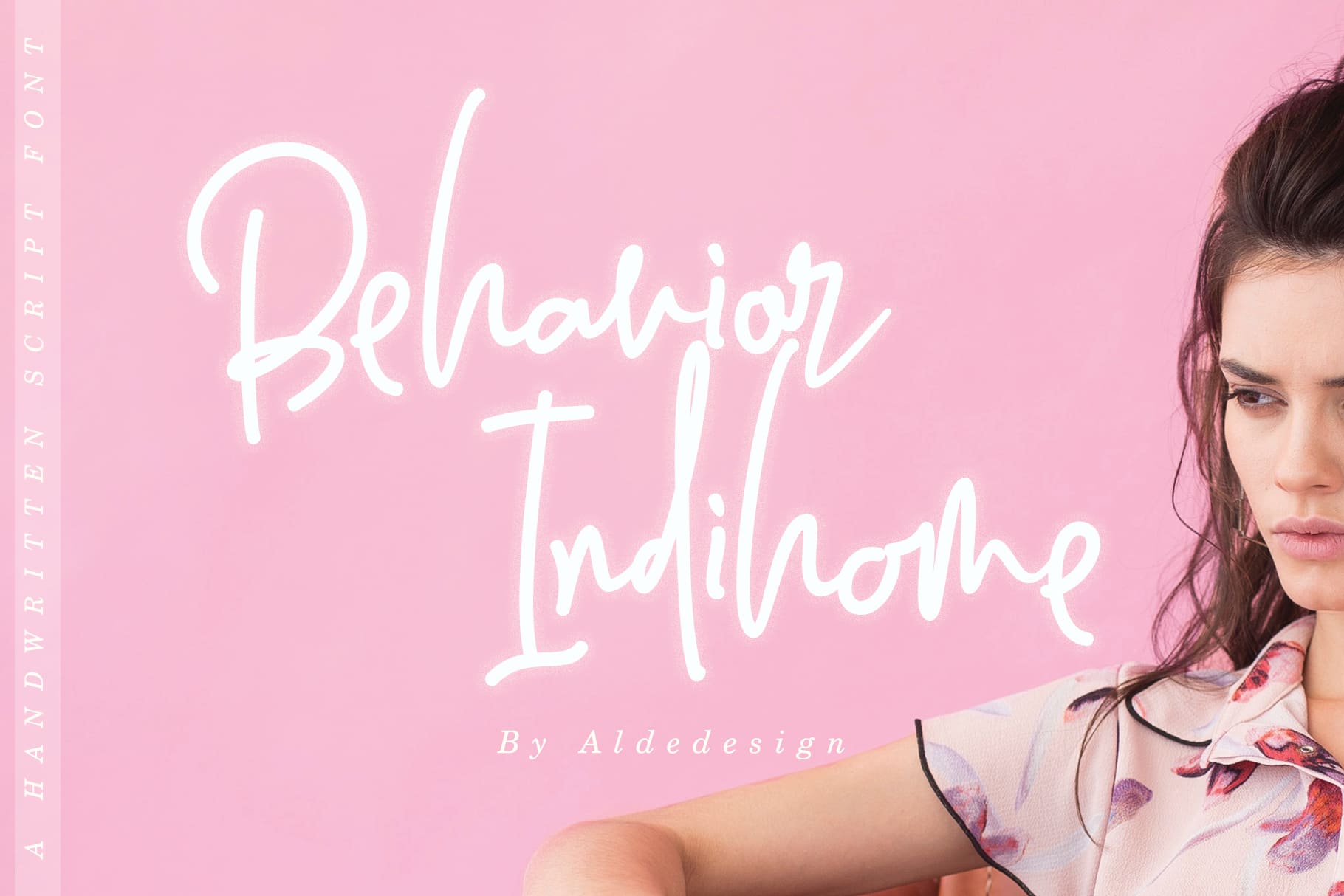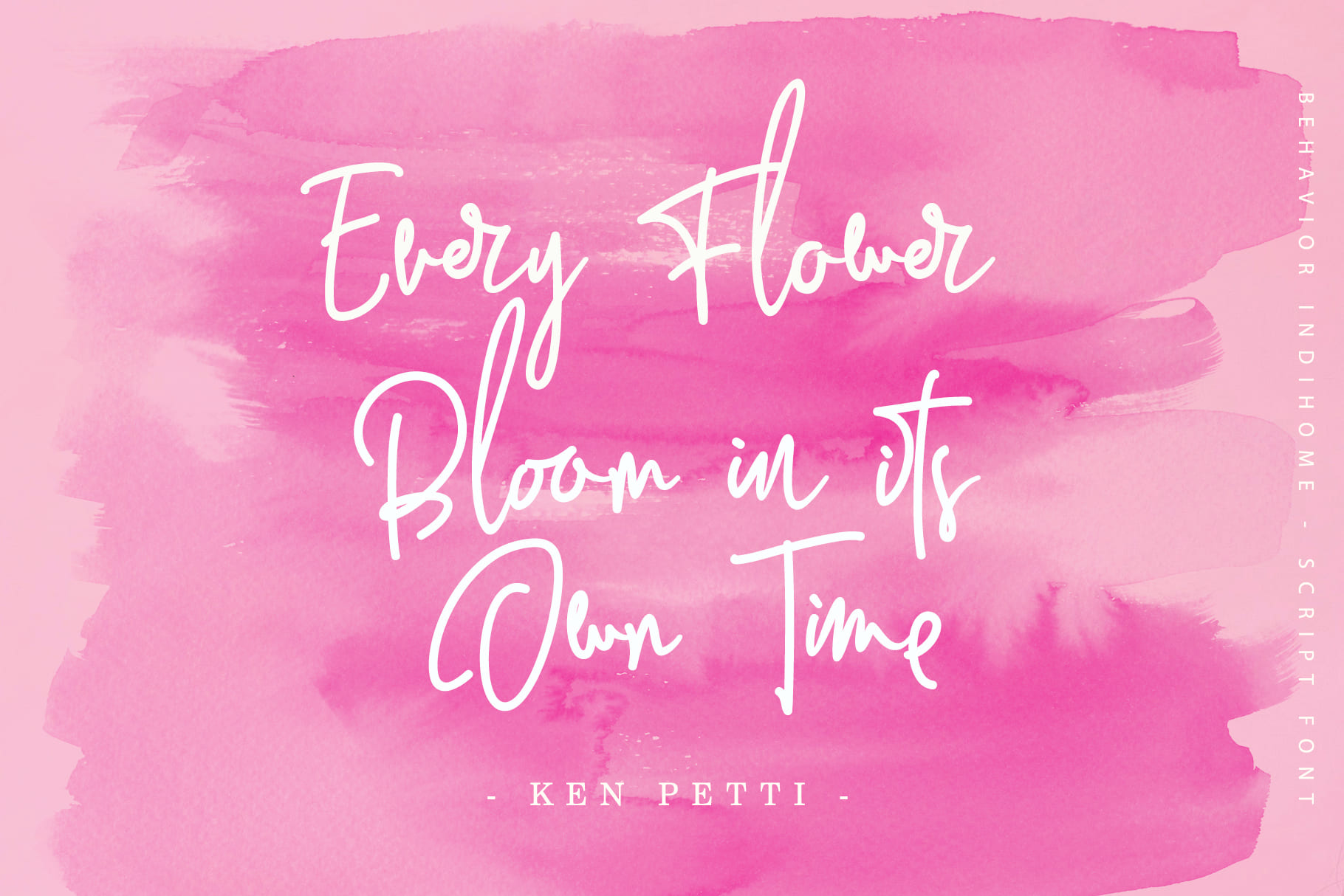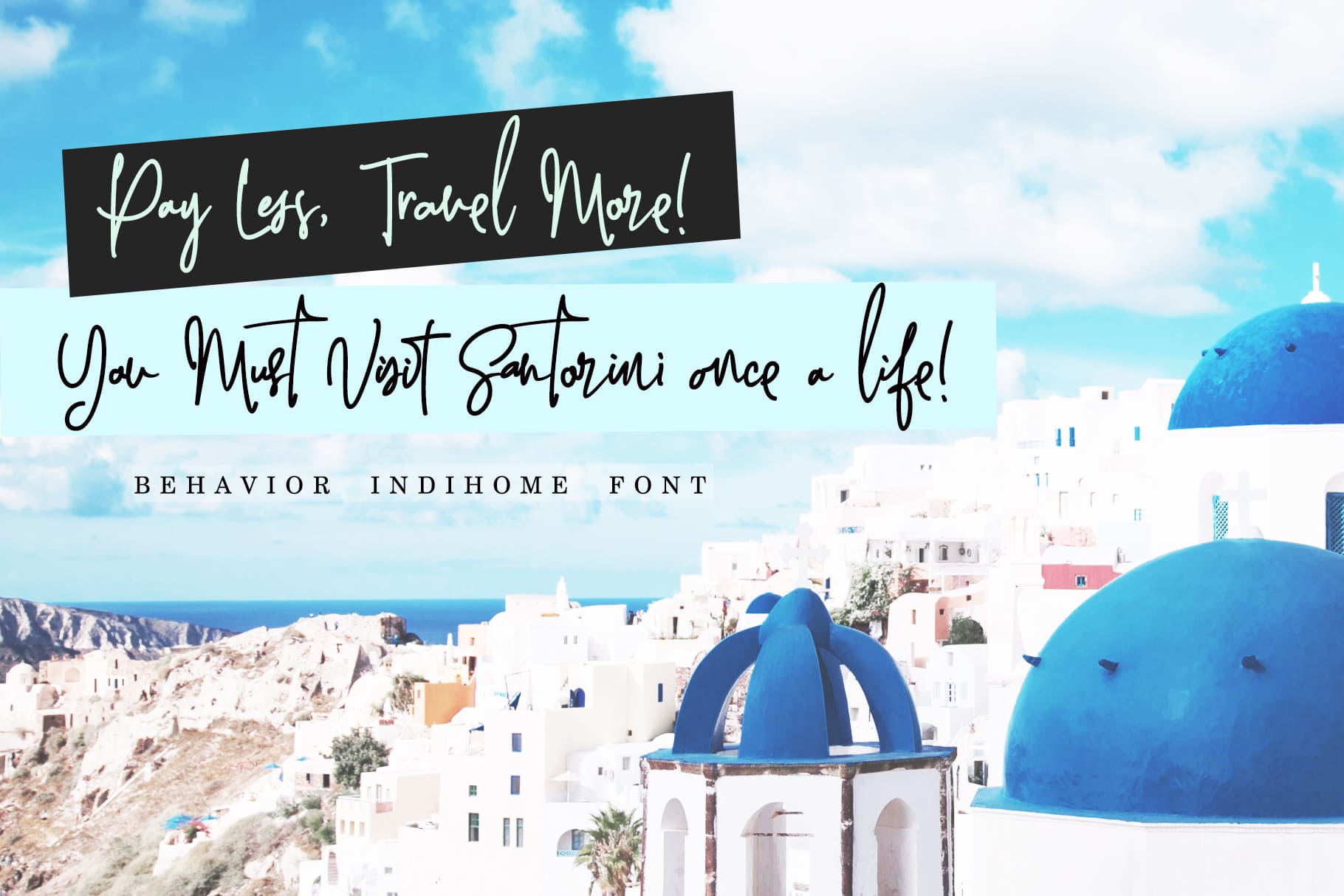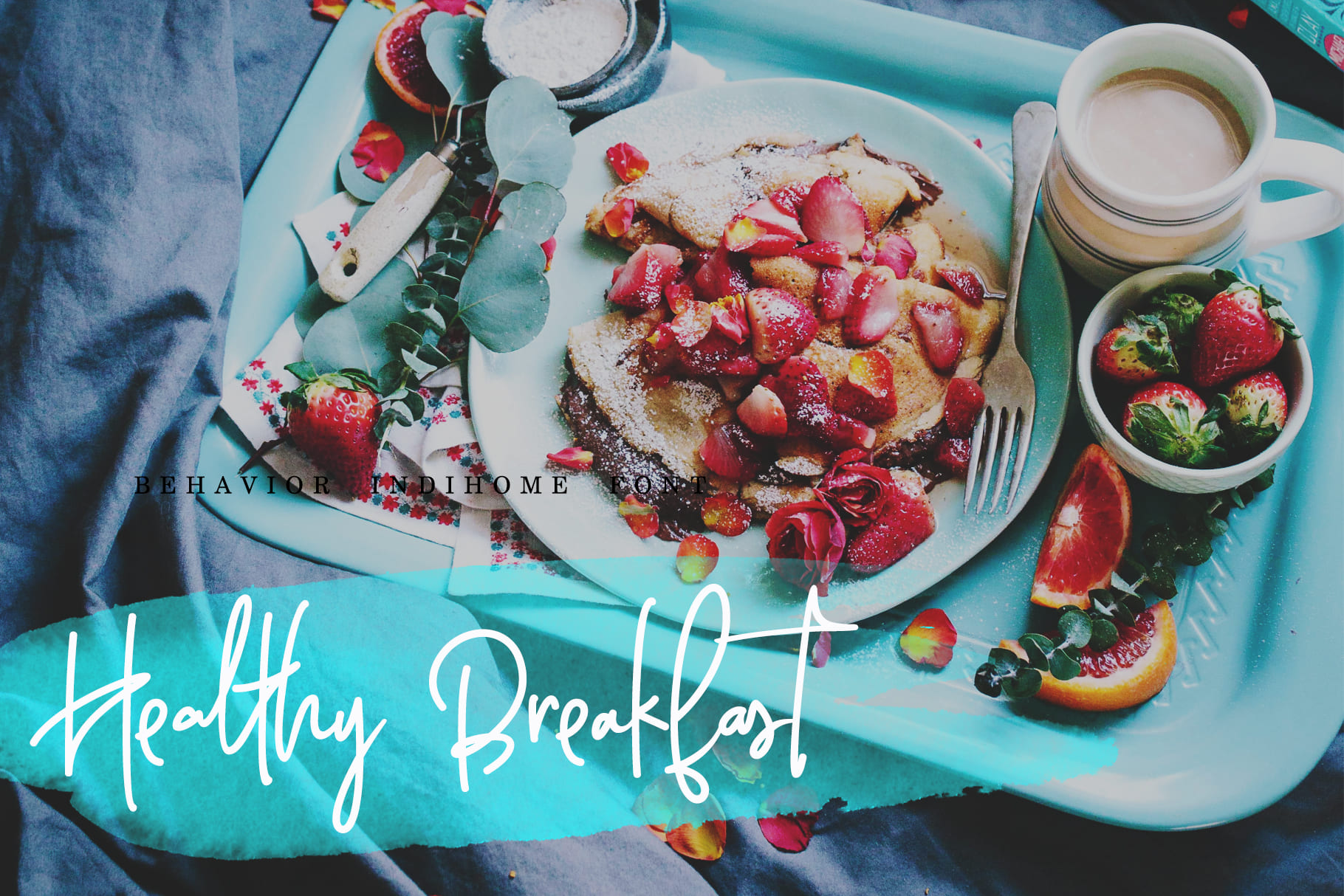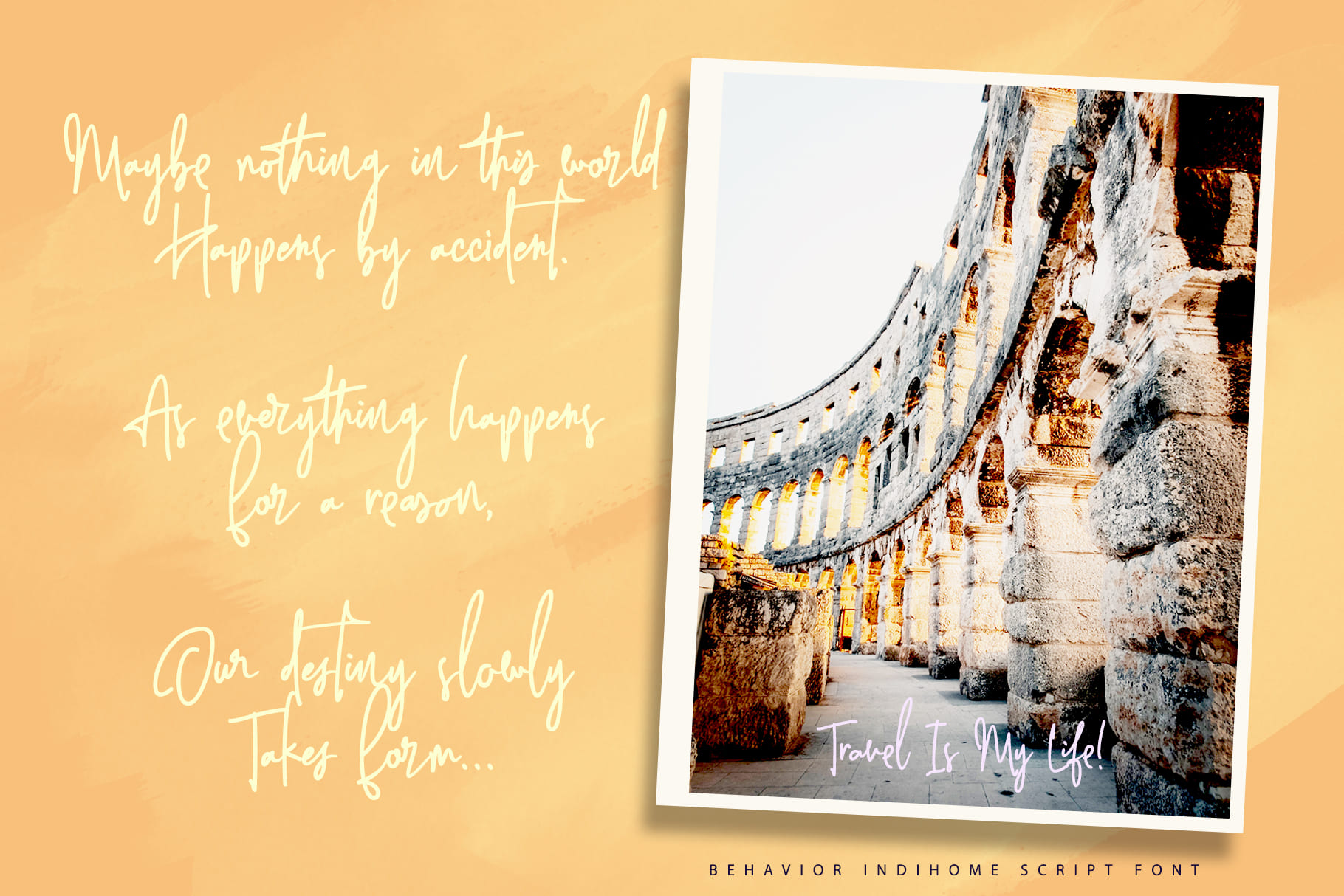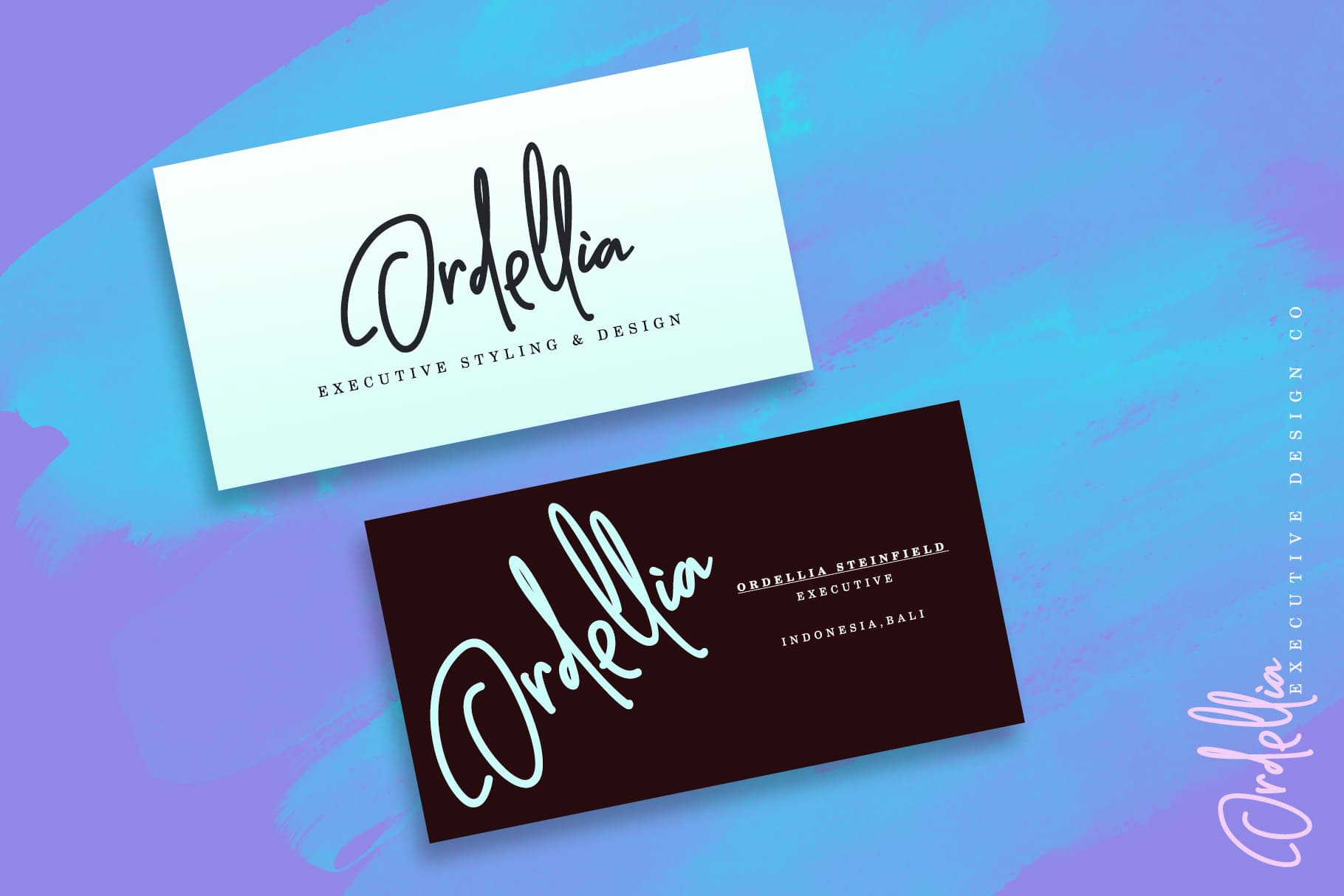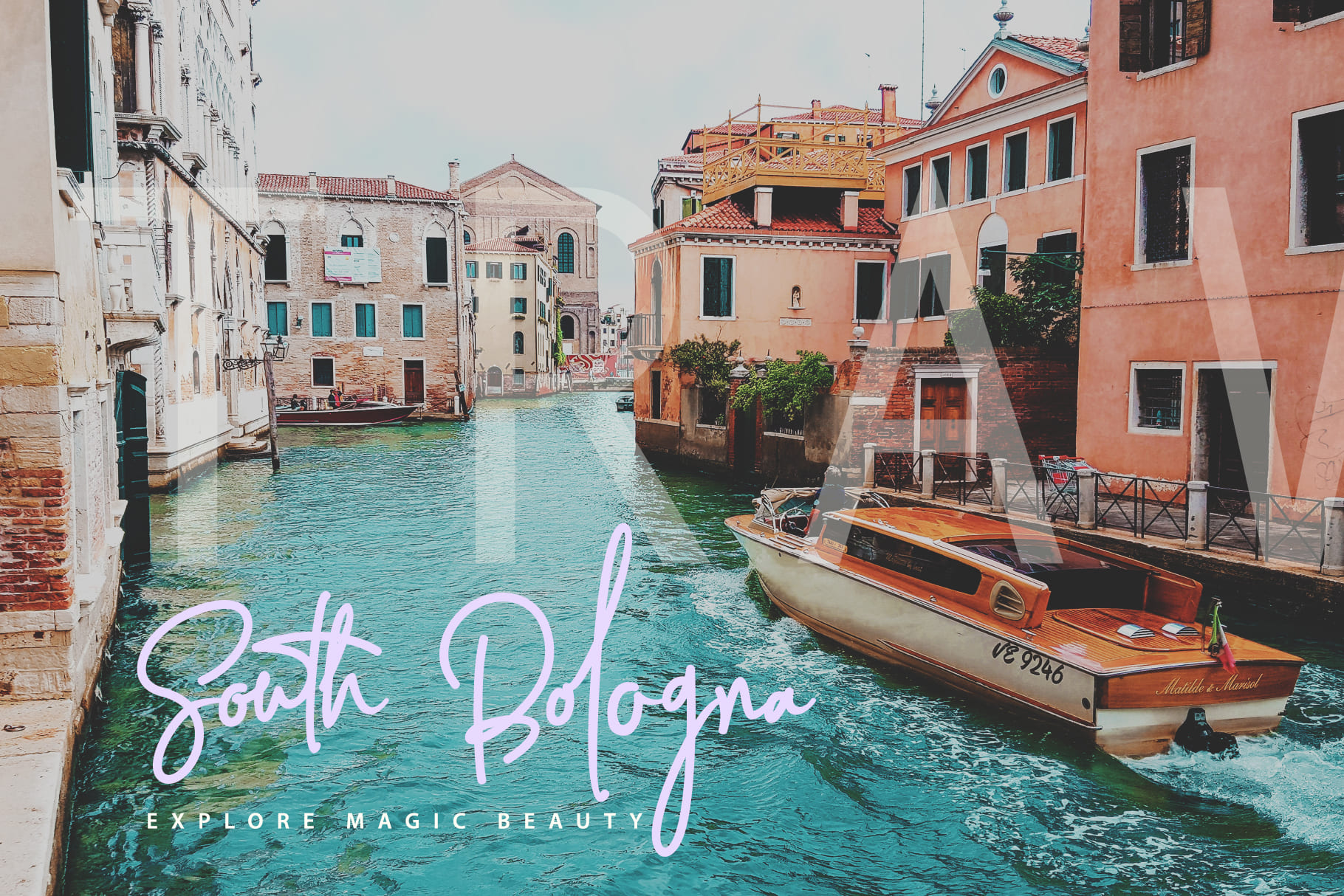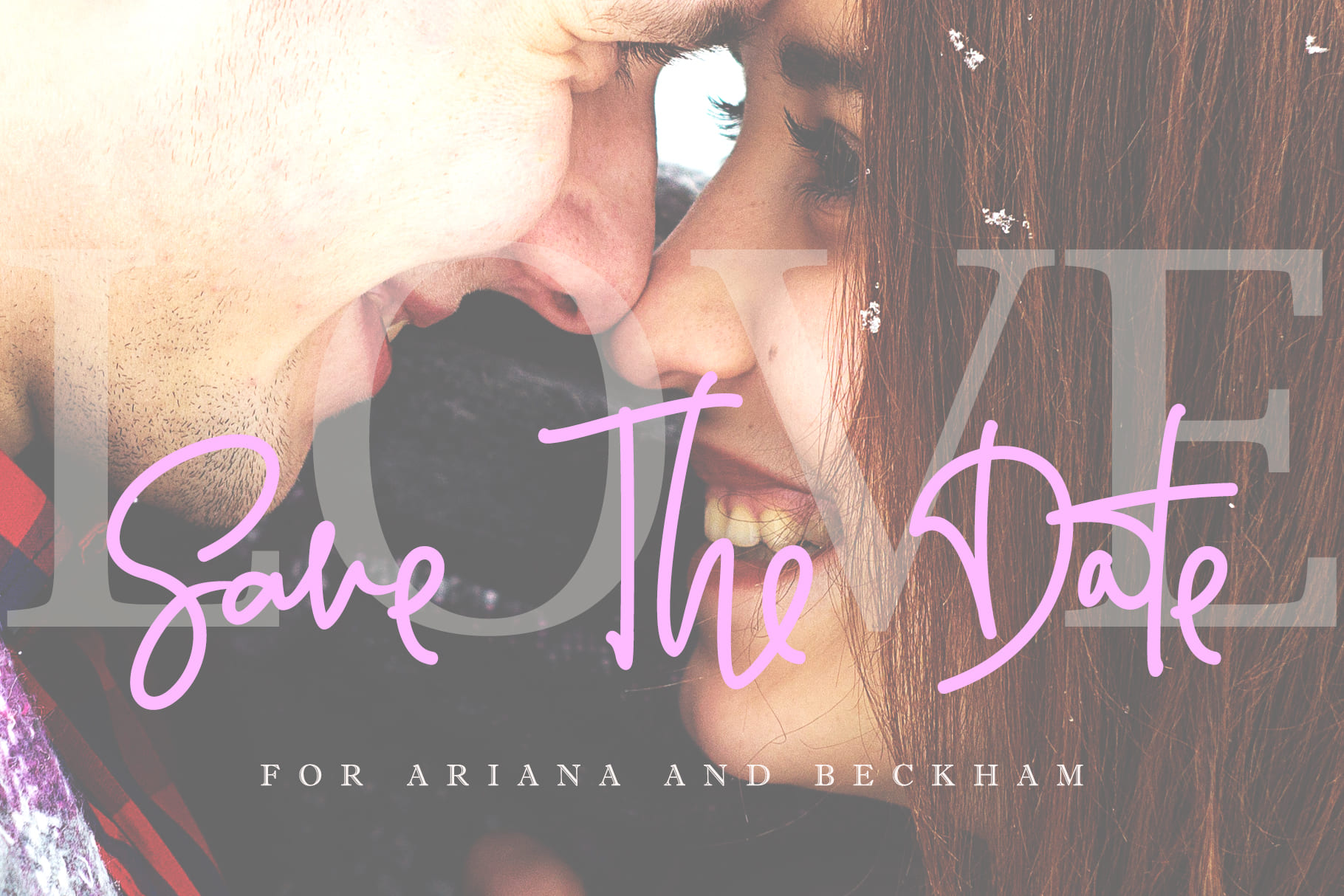
Behavior Indihome Family (2 fonts)
Behavior Indihome is a great choice for a watermark on branding, design, wedding, photography, signature, logo designs, album covers, business cards, quotes, and many other design projects.
Behavior Indihome is an eye-catching signature font that you can use for a variety of purposes including wedding invitations, signature, logo, branding, poster, and much more. Enjoy!